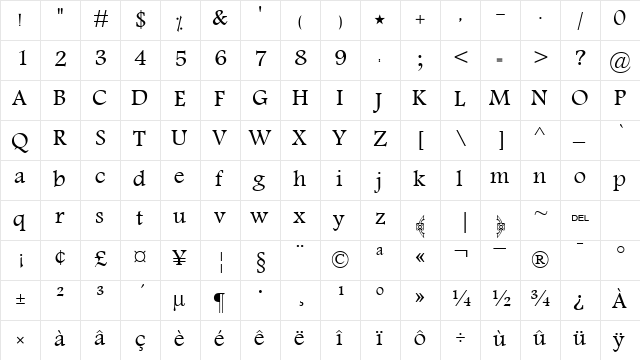
khalaad Noora Font Preview
Design Context for khalaad Noora Typeface
khalaad Noora offers clean, dependable letterforms without strong stylistic allegiance, making it a practical choice for designers who need flexibility.